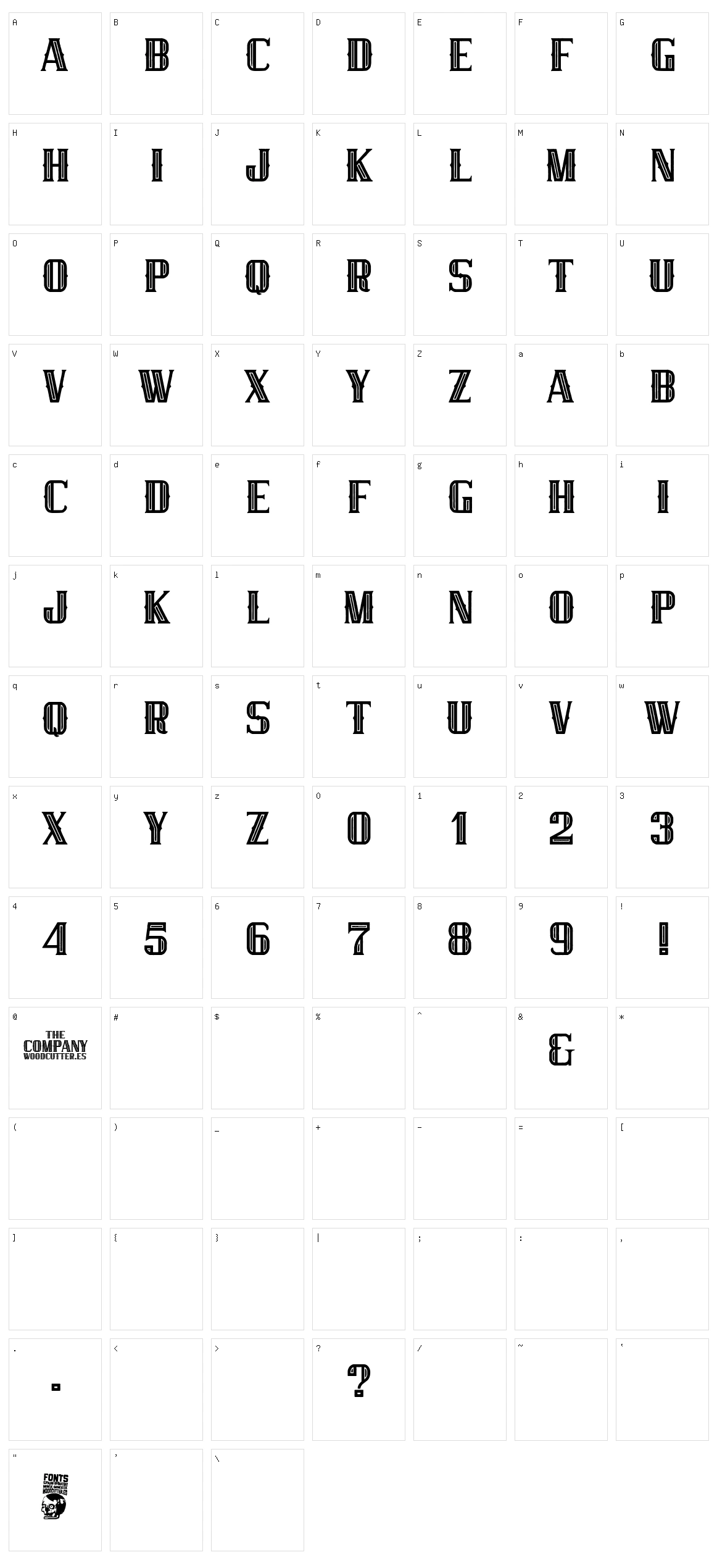
The free font The Company is carefully designed by Woodcutter, showcasing a thoughtful balance of creativity and usability and falls under the Retro font style. When you download the ZIP file, it contains only 46.96 KB of font files, making it lightweight and quick to download. Please review the license details below to understand permitted usage and distribution rights. If license information is not available, we recommend using this font for personal projects only or contacting the author directly for commercial usage permissions.